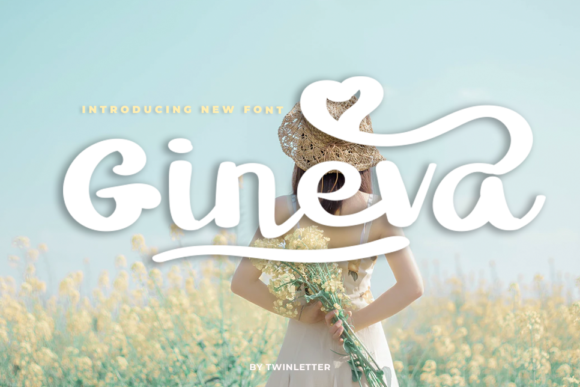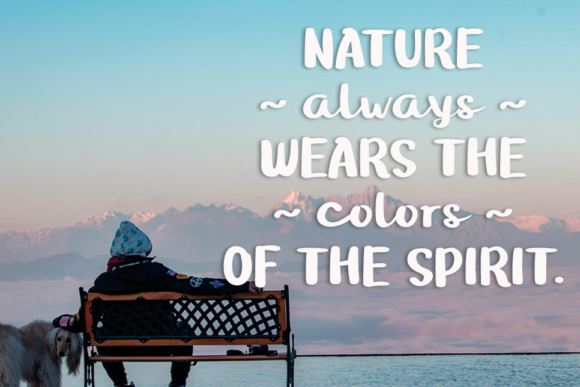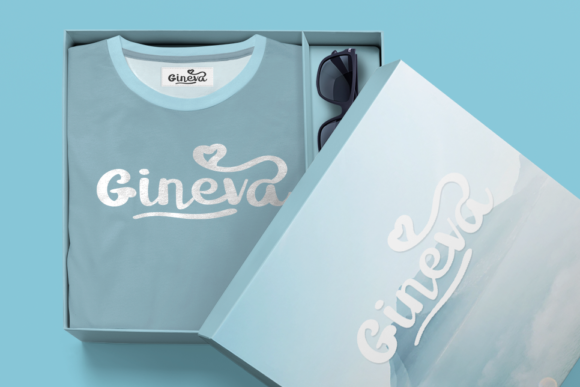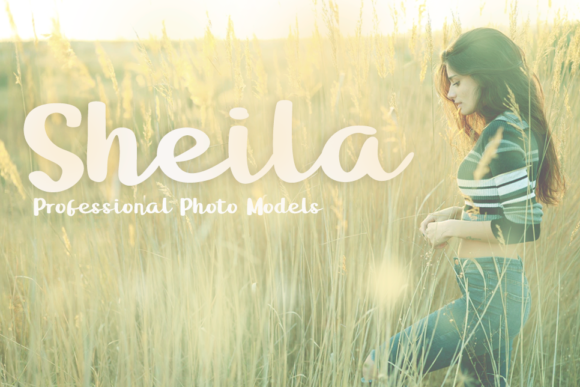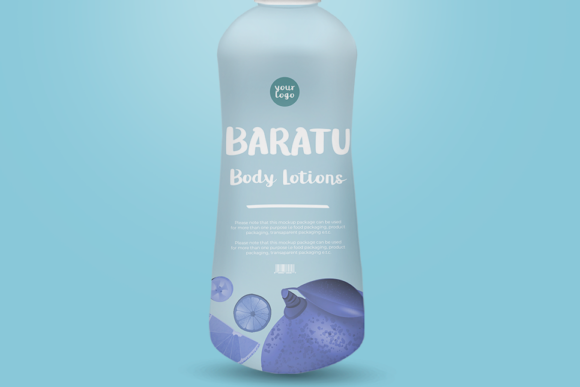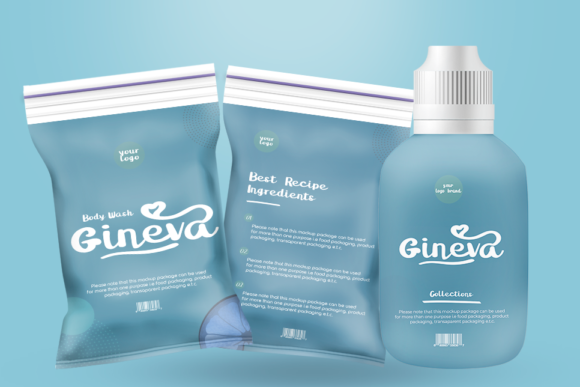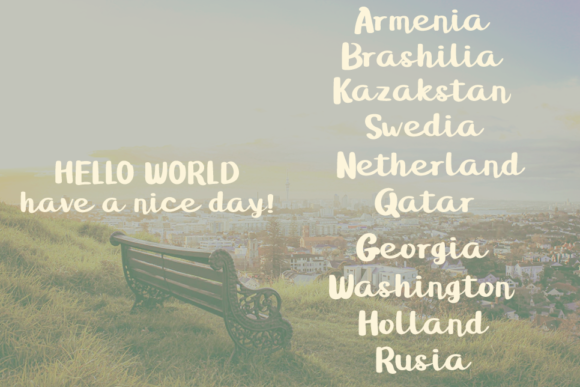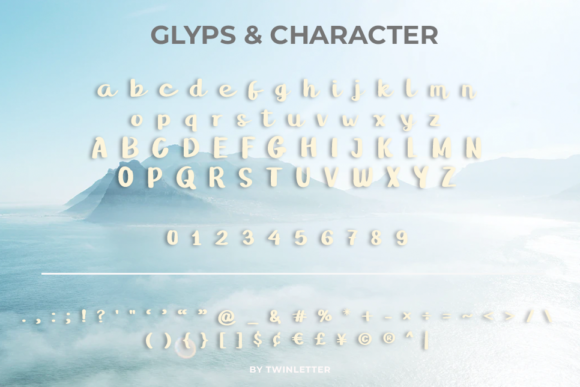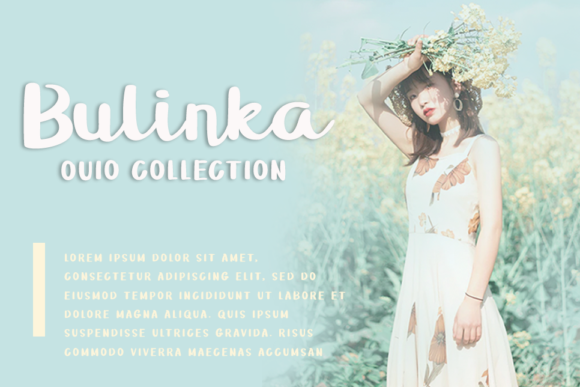
Gineva Font
About Gineva Font
Gineva is a magical handwritten font carefully created with a touch of elegance. This is a beautiful combination of timeless elegance and authentic calligraphy. It features an incredibly classic style, while still keeping a friendly feel. Gineva is the perfect font for making original and outstanding designs.